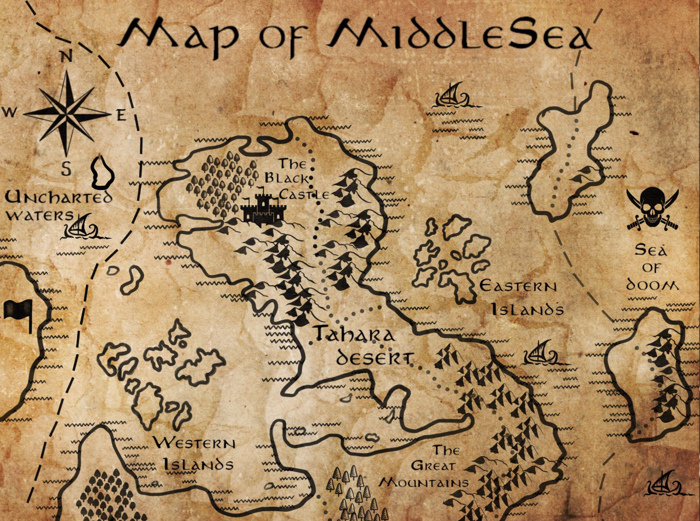
MiddleEarth Font
Based on the font used in the Lord of the Rings movies, ending titles. Lines were tweaked a bit, meant to make them more readable, even in a very small scale. :)